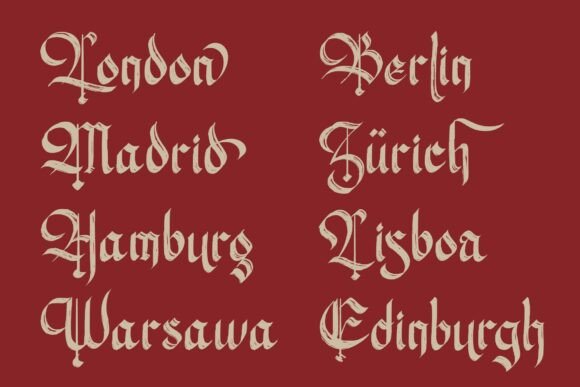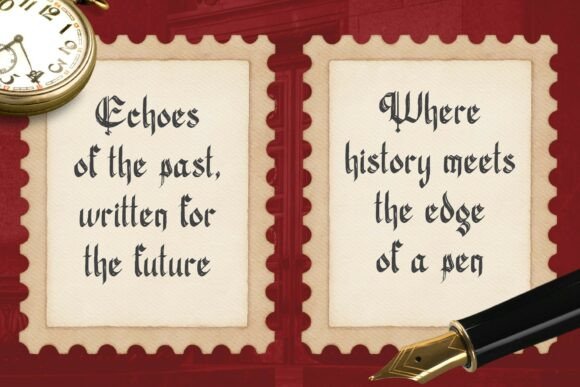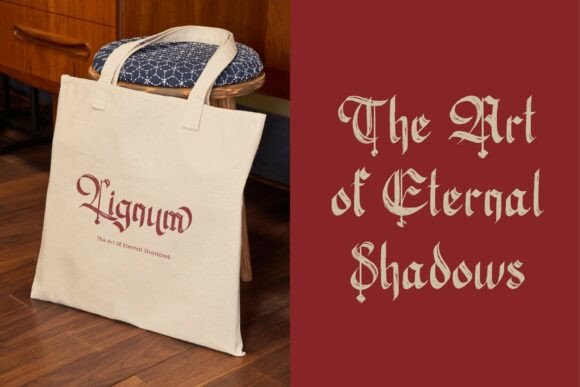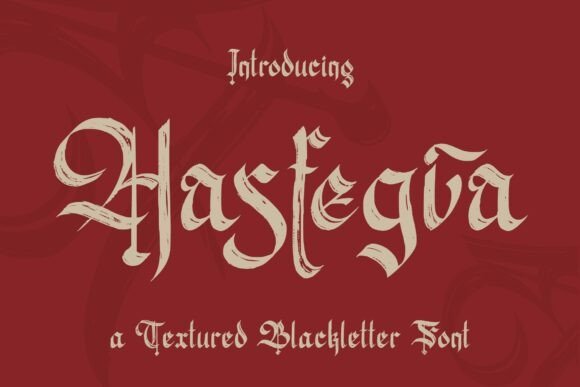
Introduction to Hasfegia Font
Immerse yourself in the dark allure of Hasfegia, a true clin d’oeil to Gothic calligraphy’s timeless chic.
This font effortlessly marries raw, hand-drawn textures and exquisite grace, birthing a sophistication unparalleled in typography Every stroke of text in Hasfegia pulses with a fierce intensity, tempered by spirited curves, concocting a captivating visual persona.